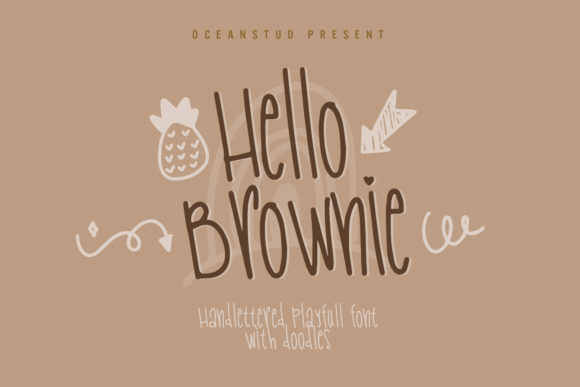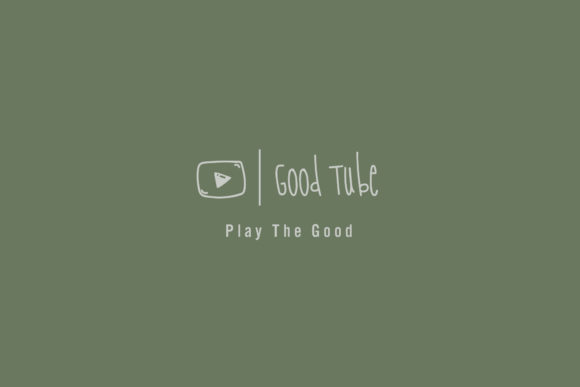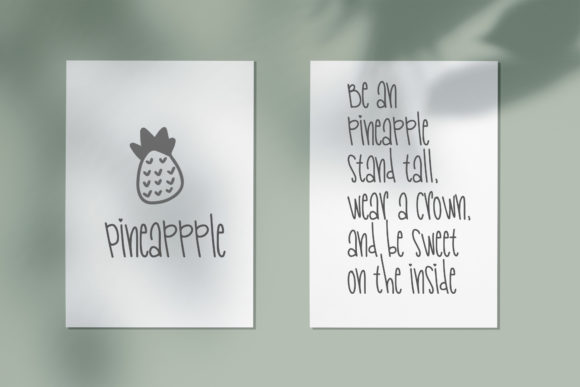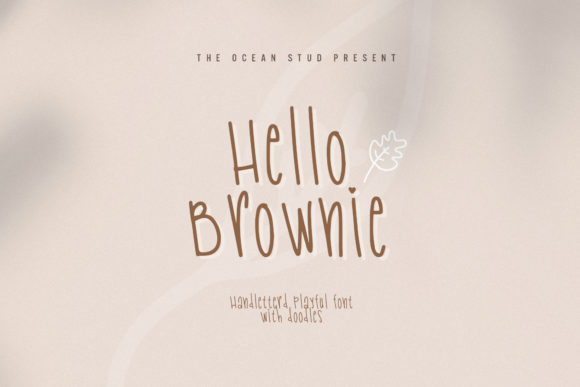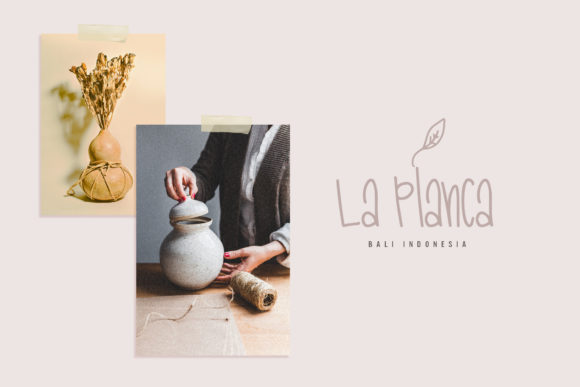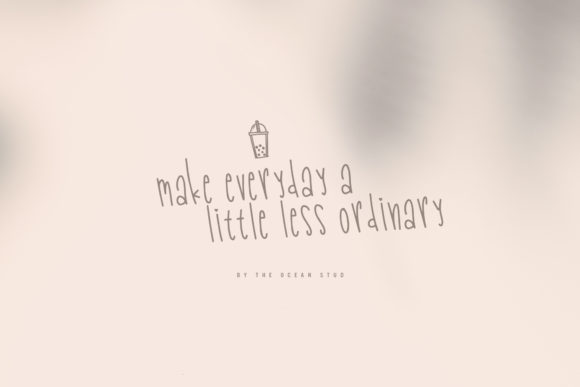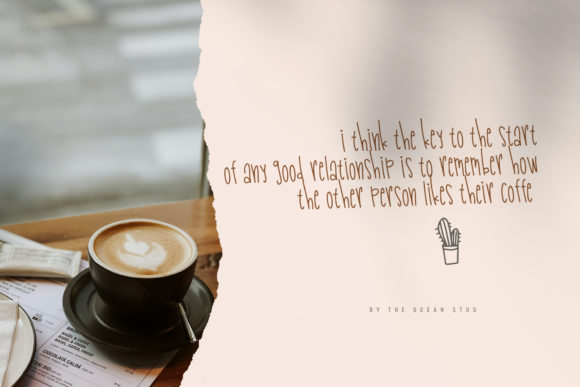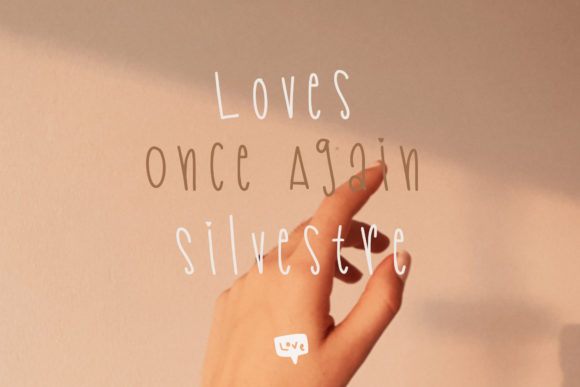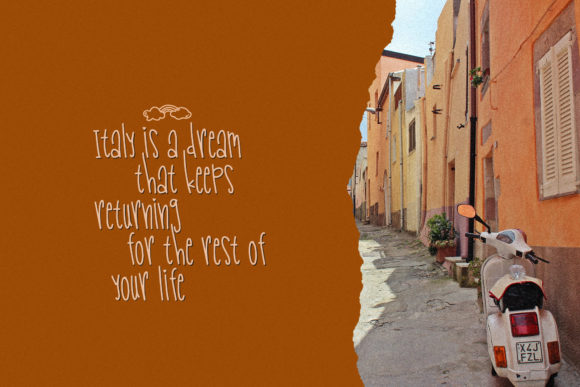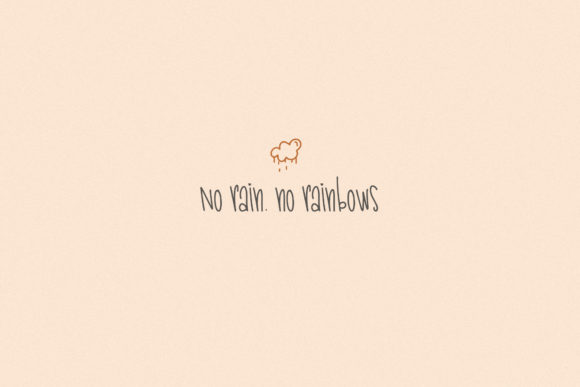
Hello Brownie Font
Hello Brownie is a delightful and whimsical handwritten font that adds a playful touch to your creative projects. With its charming and lively appearance, this font brings a sense of joy and fun to any design.
The letters of Hello Brownie are crafted with a unique and whimsical style, featuring playful curves and varying letter heights. Each character has its own personality, giving your text a lively and dynamic look. Whether you’re using it for crafting, digital designing, presentations, or greeting cards, Hello Brownie adds a touch of whimsy and creativity to your creations.
This font is particularly well-suited for projects that aim to evoke a sense of playfulness and lightheartedness. Whether you’re creating invitations for a children’s party, designing a scrapbook layout, or adding a personal touch to your digital designs, Hello Brownie brings a cheerful and energetic vibe to your work.
The versatility of Hello Brownie allows it to be used in various contexts. Its handwritten style makes it ideal for adding a personal touch to your designs. You can use it for creating custom greeting cards, designing digital illustrations, or even adding captions and titles to your social media posts. The possibilities are endless!
With Hello Brownie, you have the freedom to experiment and play around with different styles and effects. Try mixing and matching uppercase and lowercase letters, adjusting letter spacing, or adding colorful accents to create a truly unique and eye-catching design.
Whether you’re a seasoned designer or just starting out on your creative journey, Hello Brownie is a font that will bring a smile to your face and capture the attention of your audience. Let its playful and whimsical nature inspire your imagination and take your designs to new levels of creativity and fun.
Embrace the charm of Hello Brownie and let it infuse your projects with joy, creativity, and a touch of whimsy.